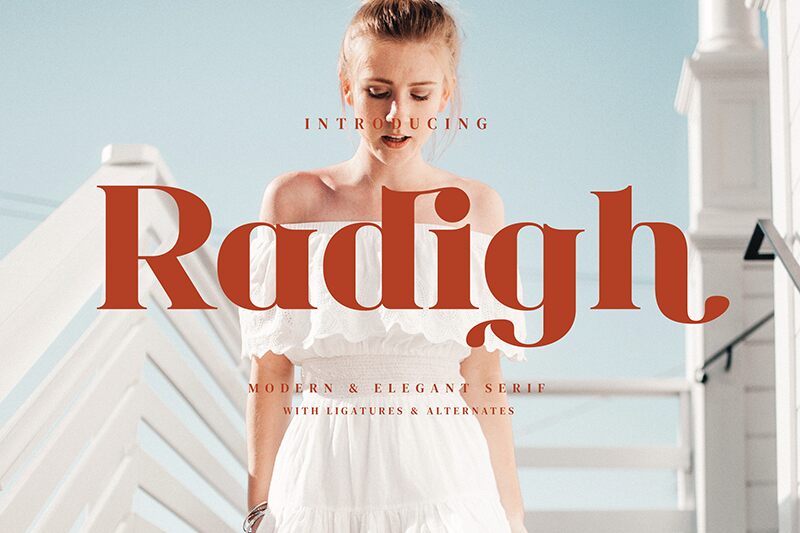
Radigh
Radigh font by Biham Santoso is a bold serif typeface combining elegance and sophistication through each curve and corner. It delivers a classic and authoritative appearance which leads to a timeless overall feel.